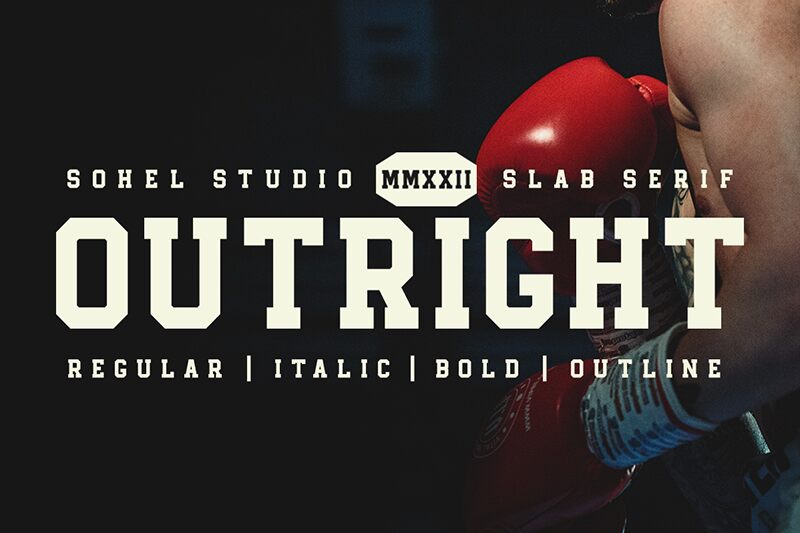
Outright font by Sohel Studio is a bold display typeface with an old-school style. Blocky, geometric, and exuding a strong presence, its unique character is both modern and filled with retro appeal. With every letter made to be impactful, the free font can convey your message just how you want it.
Use Outright for fun posters and for flyers and brochures that have to be taken seriously. Use it for artwork including typography art or for advertisements that cannot go unnoticed. This typeface can be used separately for logotypes or added to branding designs in general or as part of signage designs. It also can be used in product packaging projects with cans and bottles or labels and stickers from various sectors especially those that focus on food products such as cereals etc.